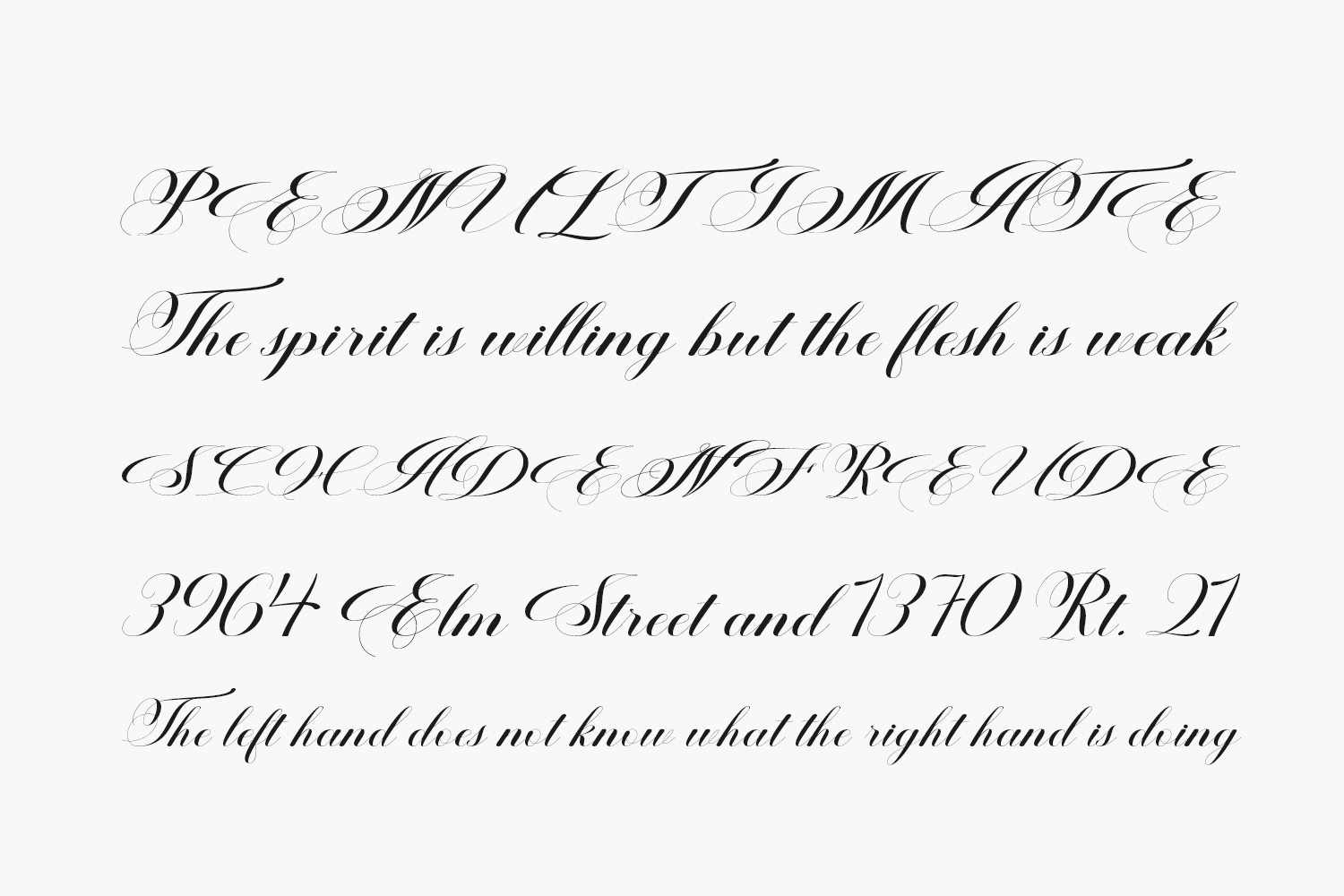
Discover the charm of Ballistic Script Free Font, a one-of-a-kind handwritten font adorned with captivating ornaments. Embrace its genuine essence to craft stunning wedding invitations, exquisite stationery art, attention-grabbing social media posts, and delightful greeting cards. Download the font for free if you need it for personal use or purchase the full version for commercial use.
Designed by Riza Haitami